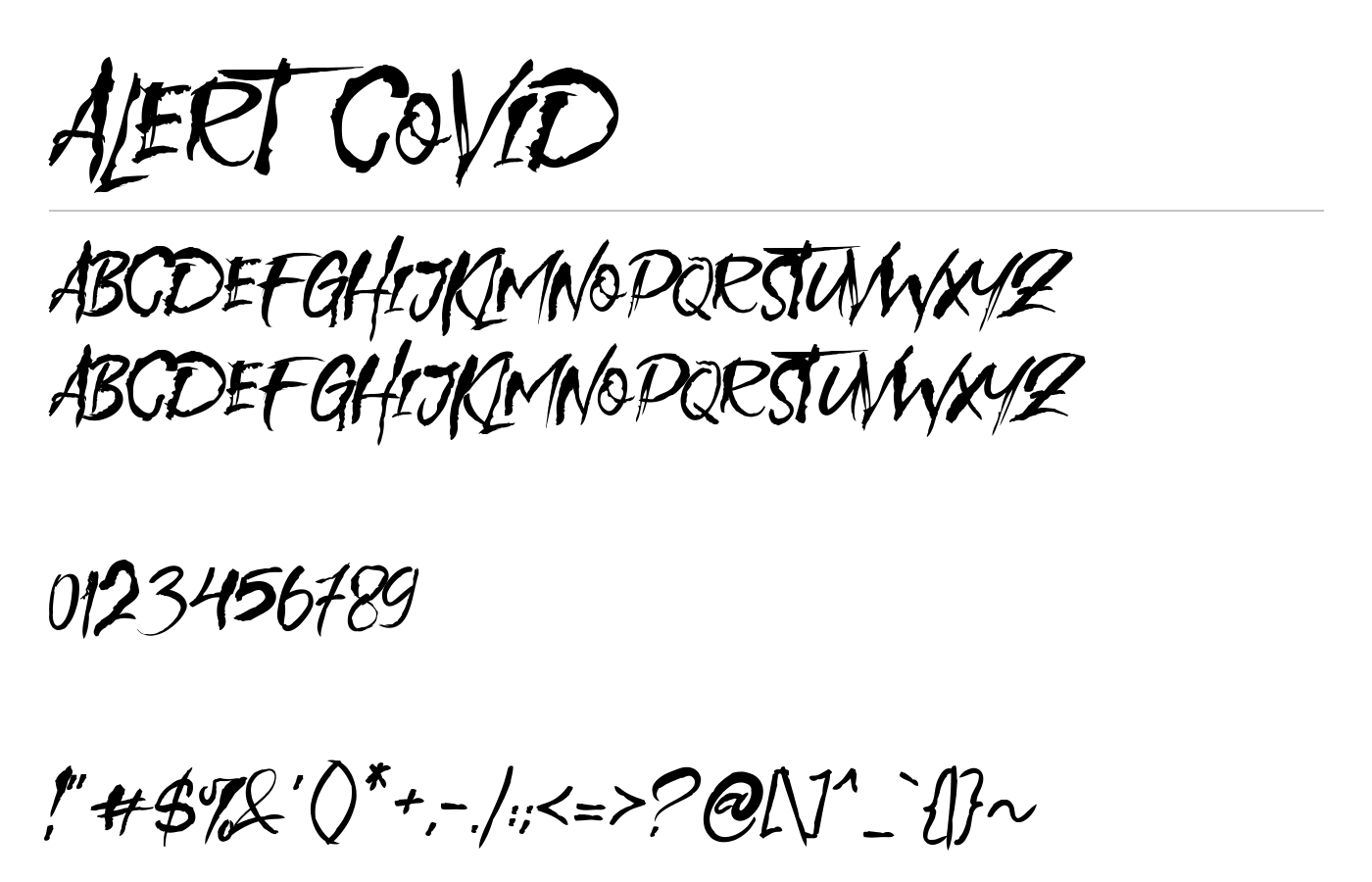
Alert Covid is a rough, handwritten script font with a frantic, brushstroke style that conveys urgency and raw emotion. Its uneven, jagged lines and irregular letterforms make it perfect for eye-catching headlines or designs meant to evoke intensity and immediacy, such as warnings, event posters, or edgy branding. This font’s expressive character works best in contexts where a bold, distressed look is needed to grab attention and communicate a strong message.
Alert Covid Font
About Alert Covid Font
| Font family | Alert Covid Font |